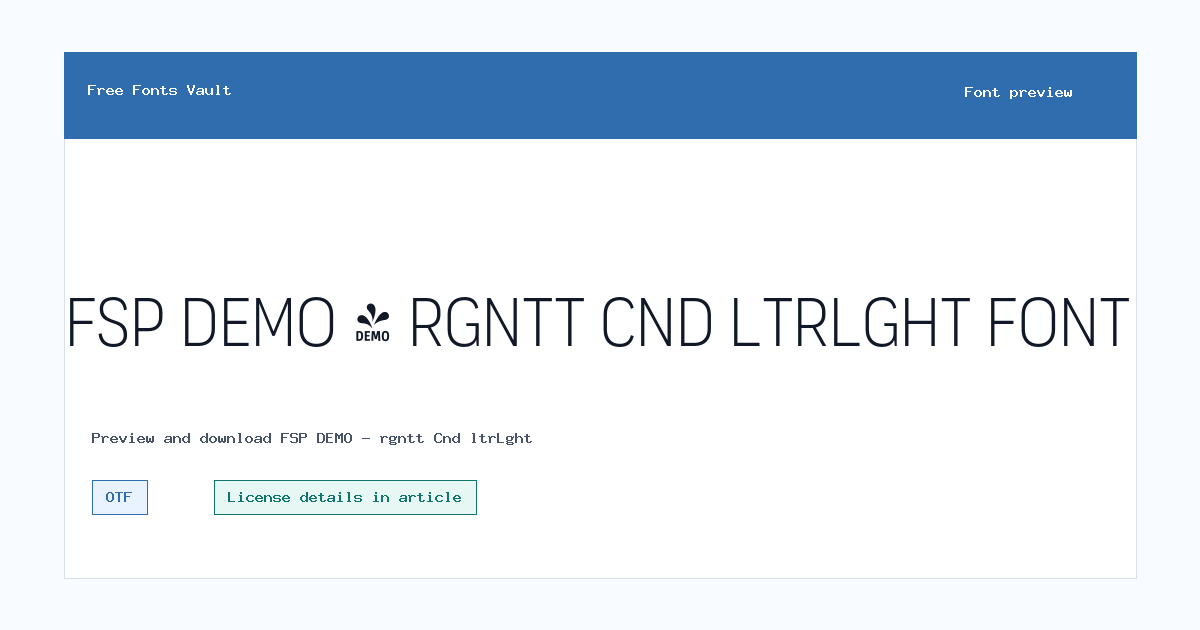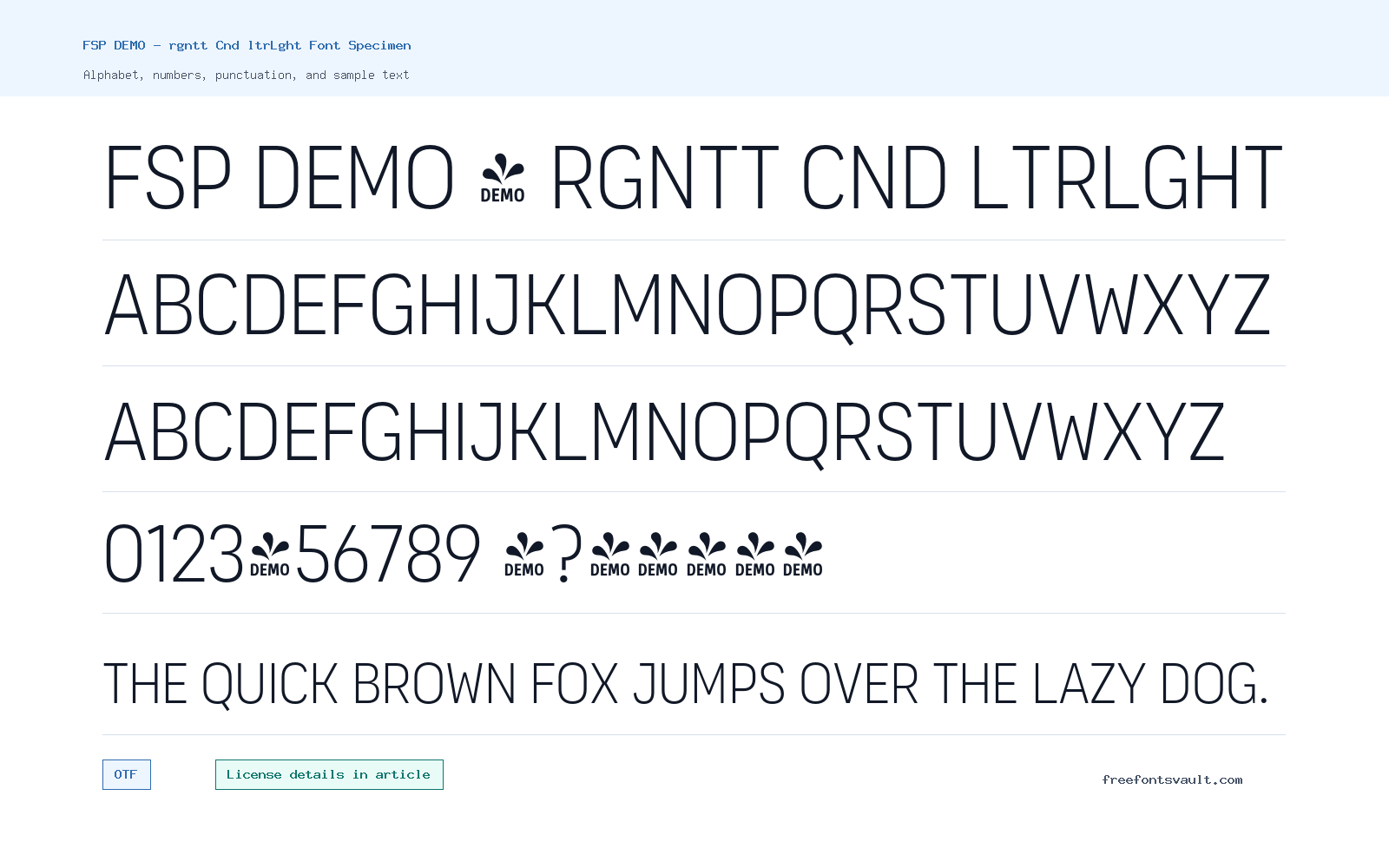
FSP DEMO - rgntt Cnd ltrLght
- Designer Cesar Araya
- Foundry Latinotype Ltda.
FSP DEMO – rgntt Cnd ltrLght font.
FSP DEMO – rgntt Cnd ltrLght is a condensed ultra-light OTF font with a narrow build and a very light weight. It is best tested in larger preview sizes, where its slim letterforms can stay clean and readable.
About FSP DEMO – rgntt Cnd ltrLght
FSP DEMO – rgntt Cnd ltrLght is identified as a normal-style, 200-weight OpenType font. The name suggests a condensed, letter-light cut, and the file name points to an Organetto condensed ultra-light style. That makes it a better fit for display use than for long reading. Try it for short headings, clean title lines, fashion-style layouts, editorial covers, portfolio graphics, and other designs where narrow spacing and a light tone help the text feel refined without taking up much horizontal space.
Because this cut is very light, preview it with the exact words you plan to use. Thin strokes can lose strength at small sizes, on busy images, or in low-contrast color combinations. For a safer layout, pair it with a more readable text face for body copy, captions, menus, and longer descriptions. Give the letters enough size, spacing, and contrast, especially if the design will appear on mobile screens or compressed social images.
- Condensed ultra-light appearance suited to short display text
- Large headings, posters, covers, and title graphics
- Minimal branding mockups, portfolio layouts, and short editorial text
The font is credited to Cesar Araya, with Latinotype Ltda. listed as the foundry.
What kind of font is FSP DEMO – rgntt Cnd ltrLght?
It is a condensed ultra-light OpenType font in a normal style with a 200 weight. It is most practical for short display text rather than long paragraphs.
Who designed this font?
The font is credited to Cesar Araya. Latinotype Ltda. is listed as the foundry.
Preview your own words at the size you plan to use. Check thin strokes, spacing, numbers, punctuation, and readability on both light and dark backgrounds.
Is this font good for body text?
It is not the safest choice for body text because the style is condensed and very light. Use it for headings or short lines, then pair it with a sturdier font for reading.